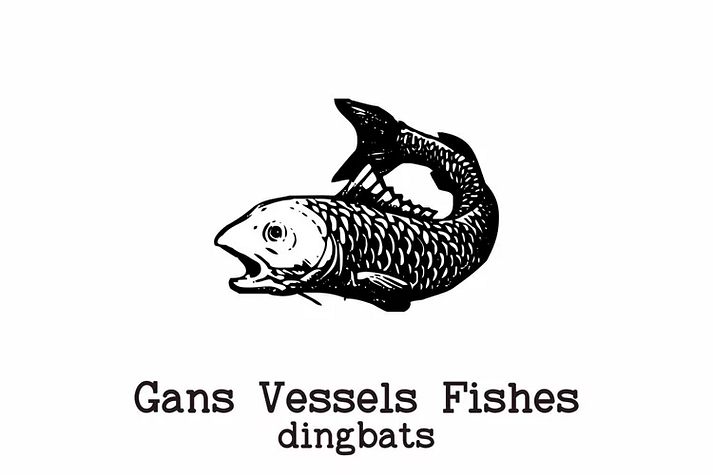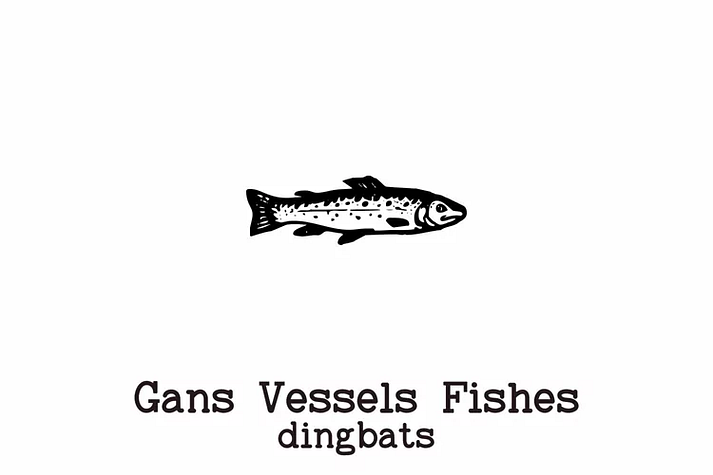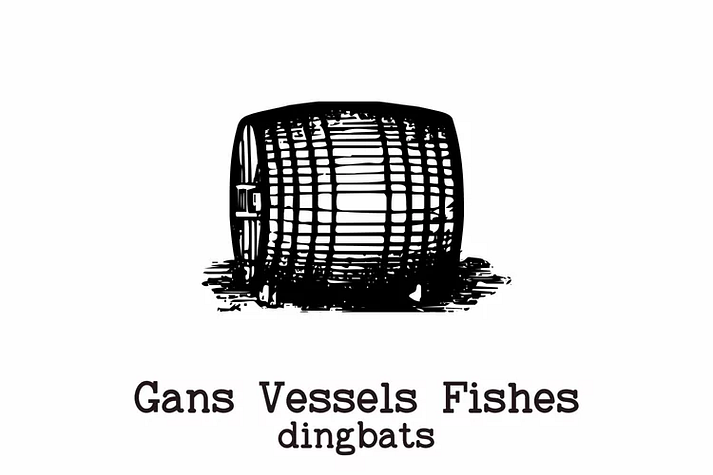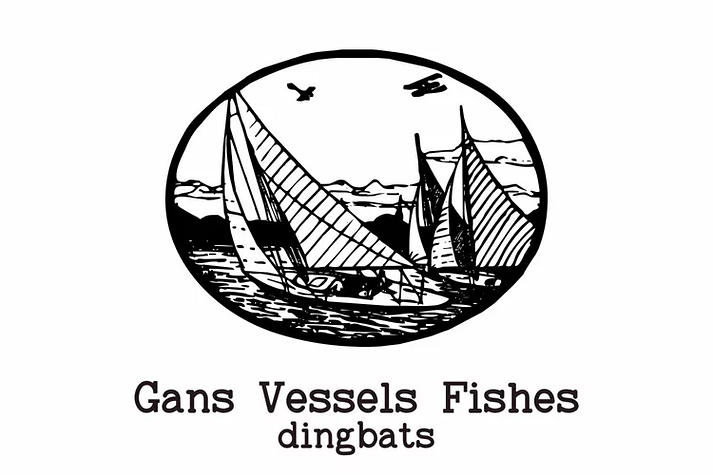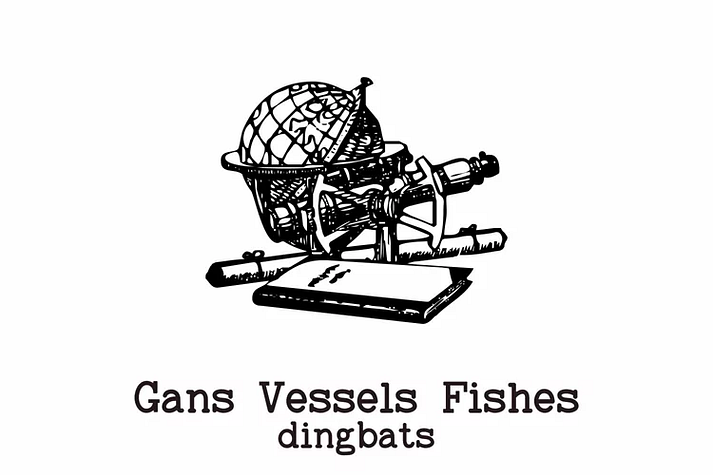
Gans Vessels Fishes
Designed by Paulo W, Gans Vessels Fishes is a dingbat font family published by Intellecta Design.
Nautical and sea DINGBATS from classic spanish Fundicion Gans…